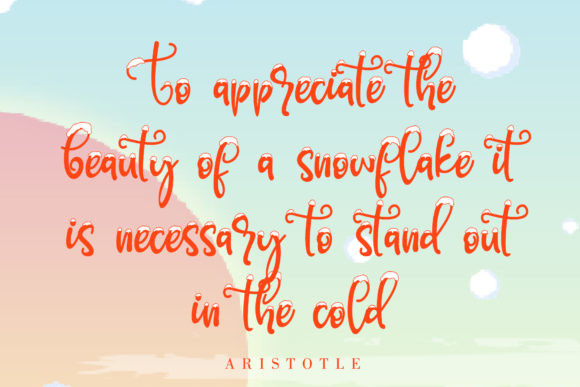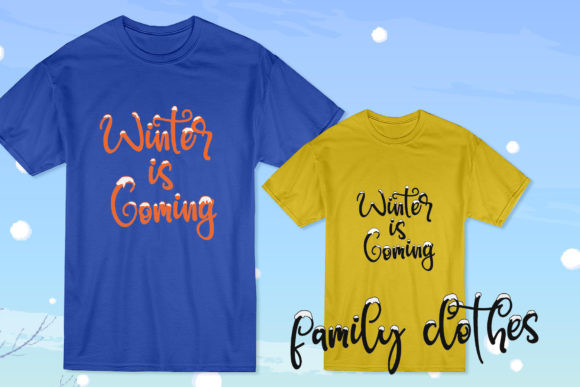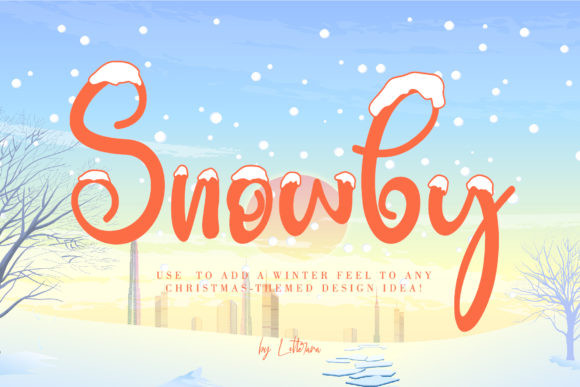
Snowby Font
Snowby is a sweet and snowy display font with a magical feel. Each of its letters is covered in snow, making it the ideal font for any Winter-project!